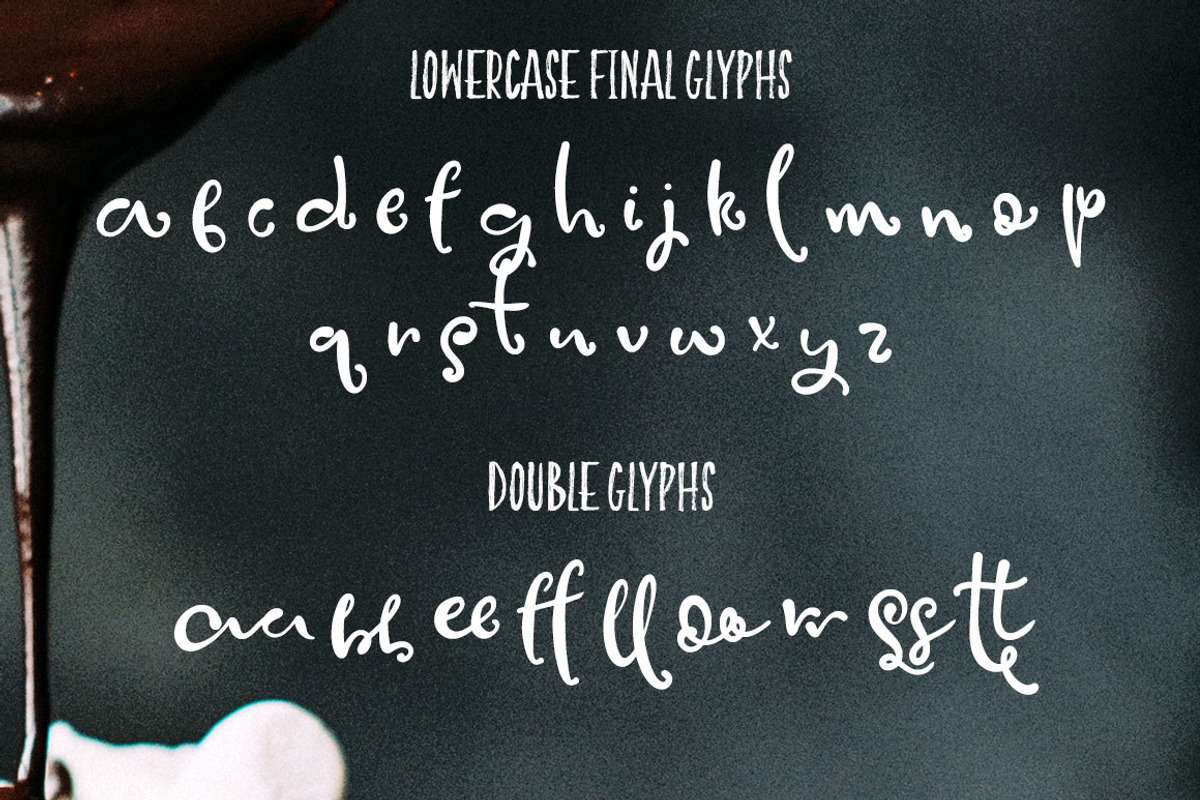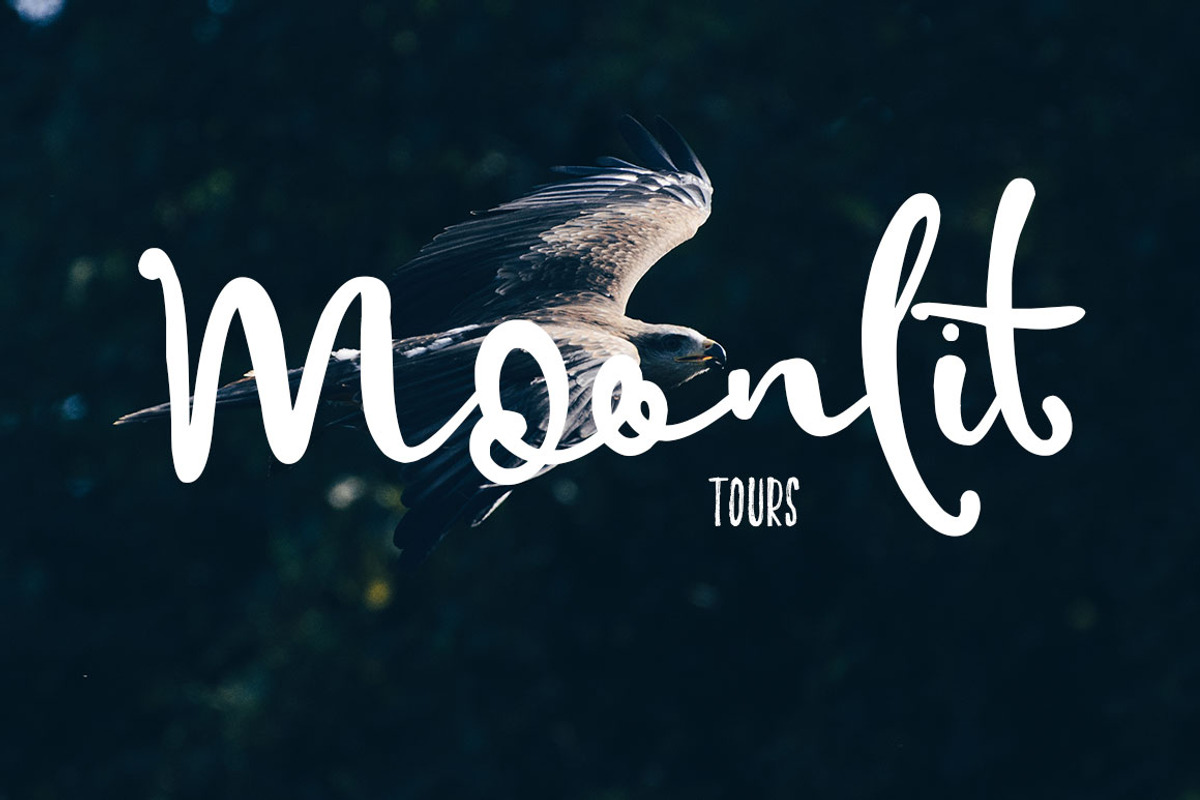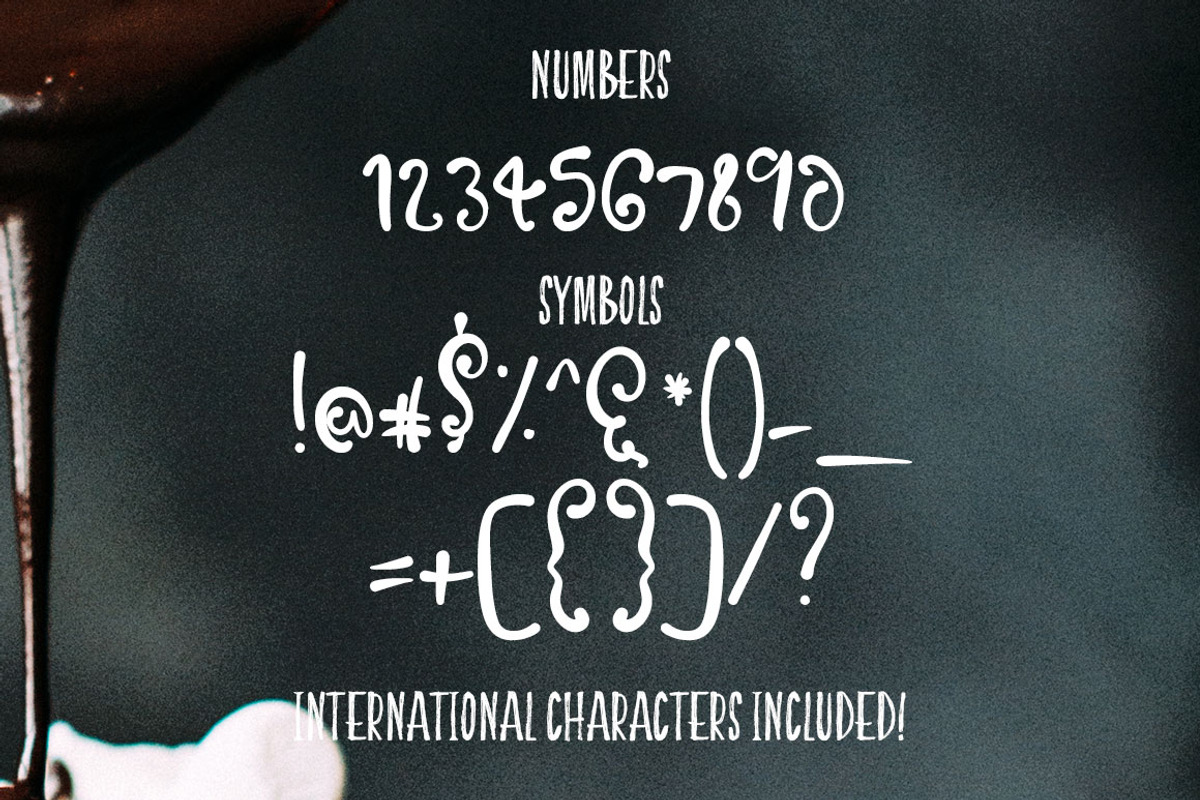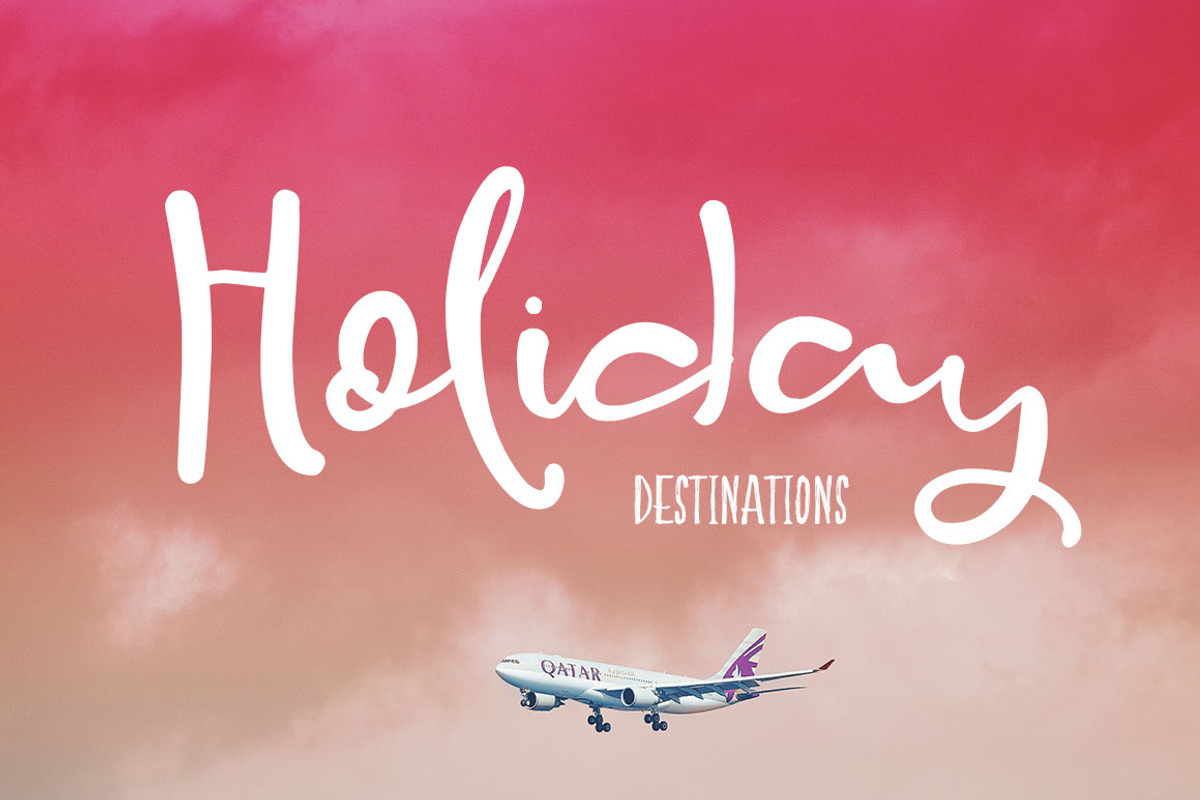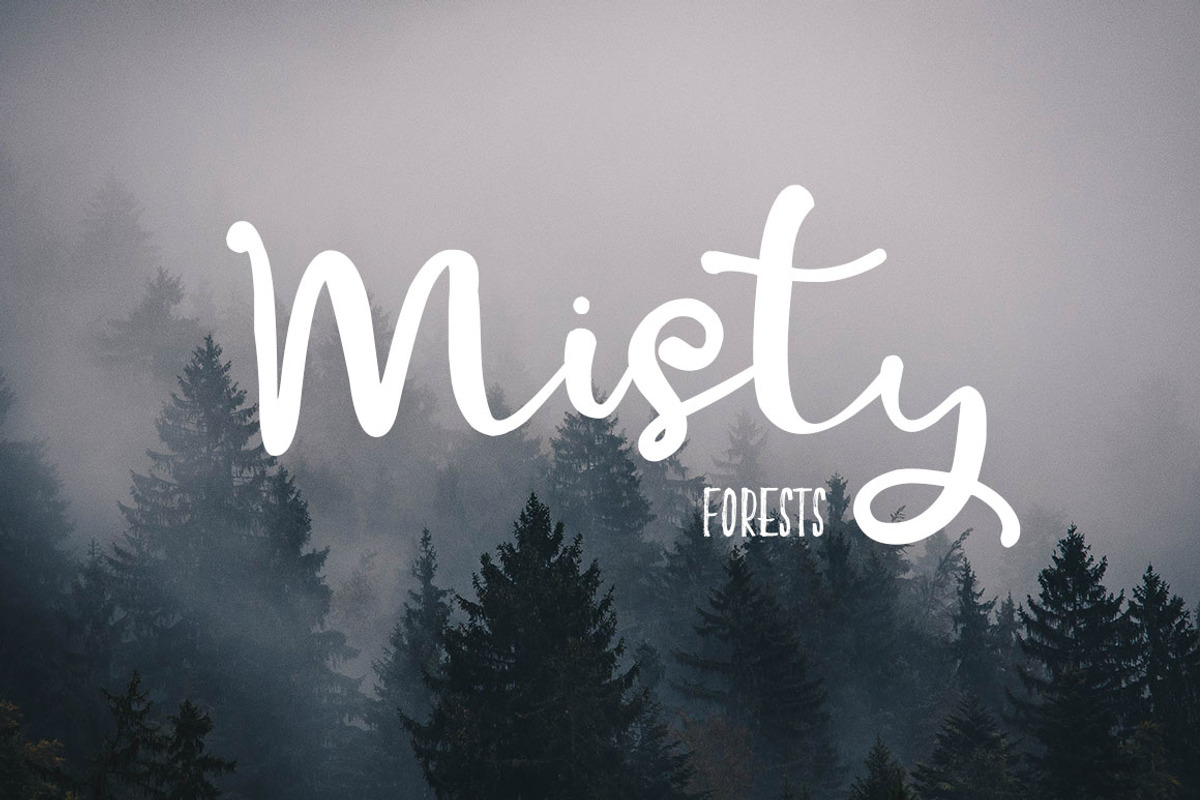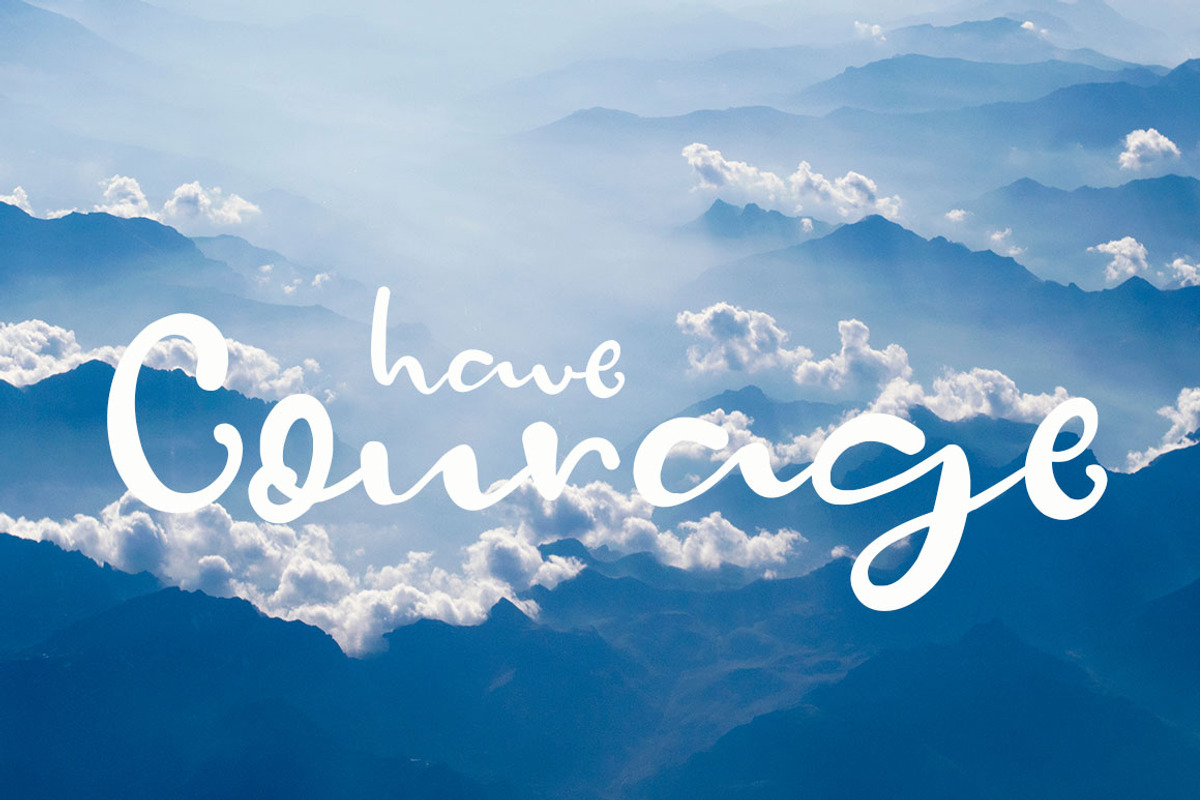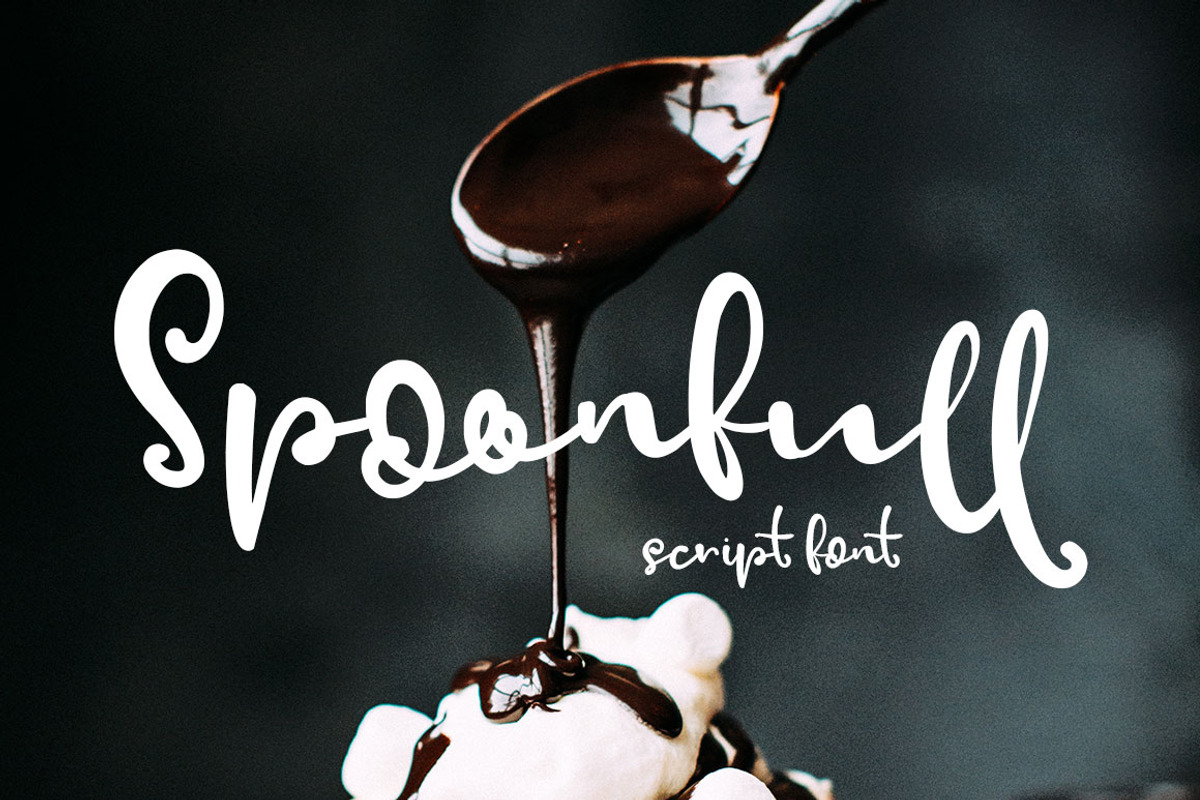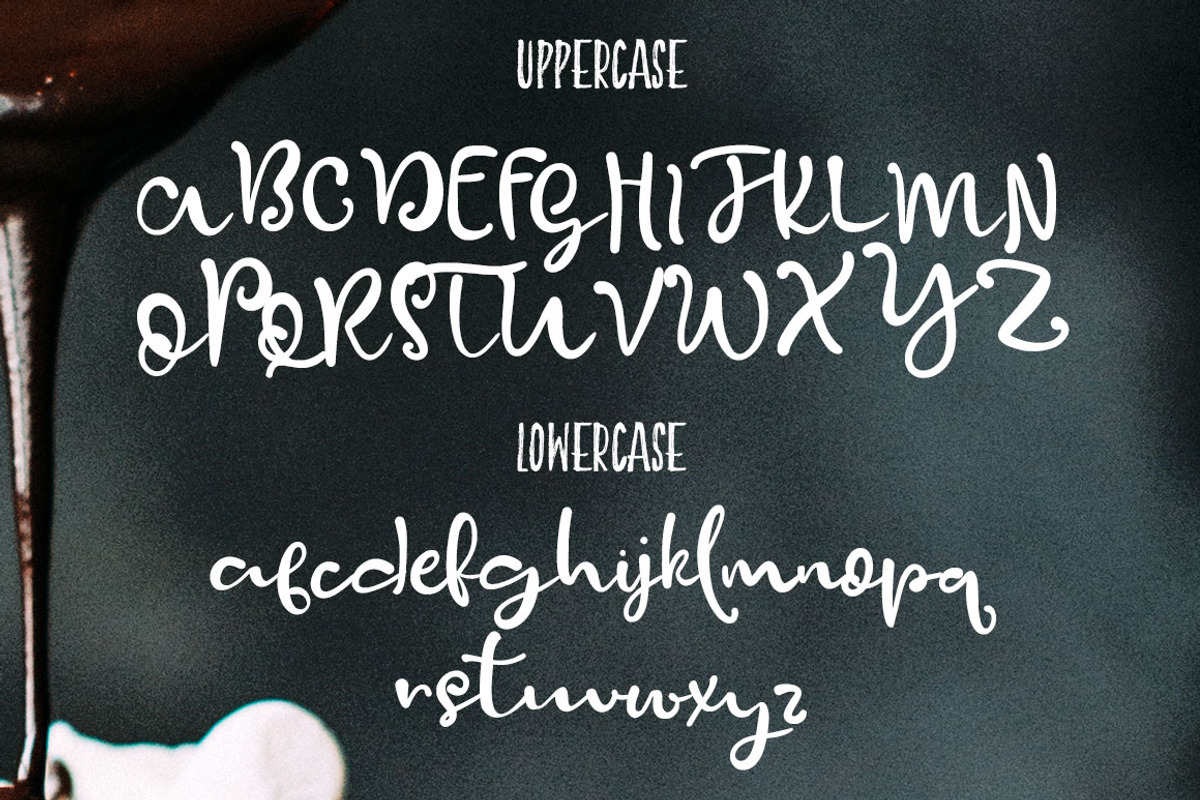
Spoonfull Script Font
Spoonfull Script Font by Creativeqube Design is a font selected for branding, posters, packaging, typography.
- Introducing the all new script font Spoonfull Filled with gorgeous alternate letters for ending words, and double letters for that genuine h
Why Spoonfull Script Font is worth a look
Spoonfull Script Font by Creativeqube Design fits naturally into Branding, posters, packaging, typography.